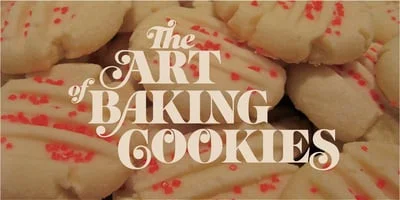
Cabernet JF Font
Cabernet JF Font is ideal for luxury winery branding, fine wine labels, sophisticated vineyard marketing, upscale restaurant wine menus, wine tasting event invitations, premium cellar documentation, elegant wine bar signage, refined sommelier materials, vintage wine collections, and distinguished wine tourism campaigns.
What makes Cabernet JF Font exciting is its vintage sophistication and wine-inspired elegance that captures the essence of fine winemaking with rich complexity and aged refinement. This distinguished typeface embodies the spirit of premium viticulture with its refined character forms and wine-inspired proportions that evoke aged oak barrels in candlelit cellars, handwritten vineyard journals documenting perfect harvests, and the kind of sophisticated craftsmanship that transforms simple grapes into liquid poetry. The font's vinous character creates an immediate impression of luxury and the kind of refined taste that appreciates life's finest pleasures.
Cabernet JF Font family includes regular weight with elegantly crafted character designs featuring wine-inspired curves and vintage proportions. The typeface maintains exceptional readability while showcasing its distinctive sophisticated personality through richly designed letterforms that seem aged to perfection like the finest vintage wines in prestigious cellars.
Wine industry professionals consistently select Cabernet JF Font for projects requiring authentic wine appeal and viticulture credibility. This remarkable typeface brings the elegance of fine winemaking to brand communications, combining vintage aesthetics with sophisticated refinement to create memorable wine experiences. The elegantly designed characters ensure prestigious positioning across all applications, making it essential for wineries, fine dining establishments, and any organization seeking to communicate the sophisticated artistry and refined craftsmanship that defines exceptional winemaking through Cabernet JF Font.